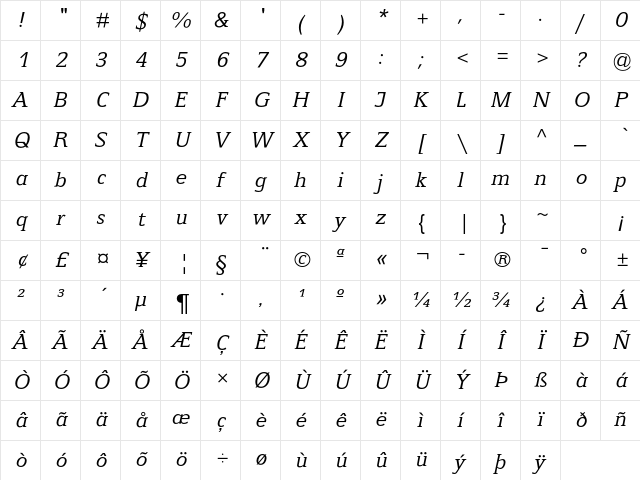
Jeunesse Slab Std Italic Free Font
Jeunesse Slab Std Italic
Design Context for Jeunesse Slab Std
Jeunesse Slab Std features prominent, blocky serifs that give it a confident, grounded presence - equally at home in editorial settings and bold branding work. The slanted form adds forward momentum and visual energy.
Pro Tip: Use Jeunesse Slab Std for headlines and subheadings where its slab serifs can make an impression. It also holds up well in mid-size body copy thanks to its sturdy construction.